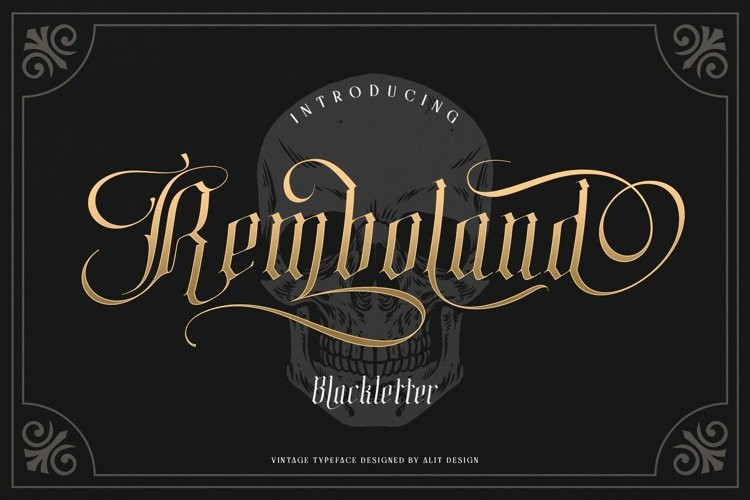
Remboland Font
Remboland FontRemboland Typeface is a font inspired by the Blackletter typeface, made with a modern impression but still looks strong and unique. Supported by alternative options such as swash, ligature and alternative characters, making The Remboland Typeface Blackletter very easy to create designs with strong or dark themes. In addition, The Remboland Typeface Blackletter is also supported with multilingual characters that can be used in several international languages.